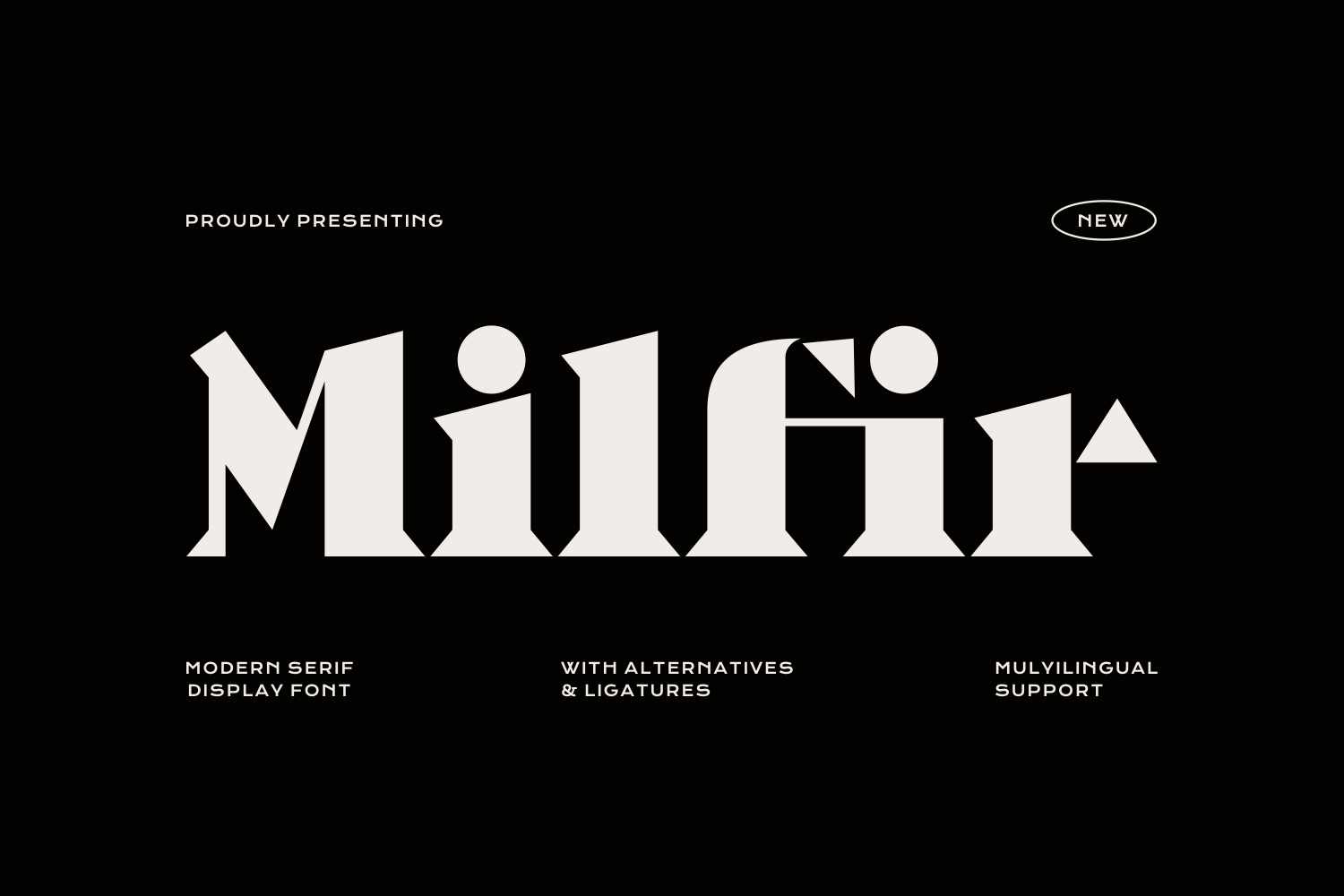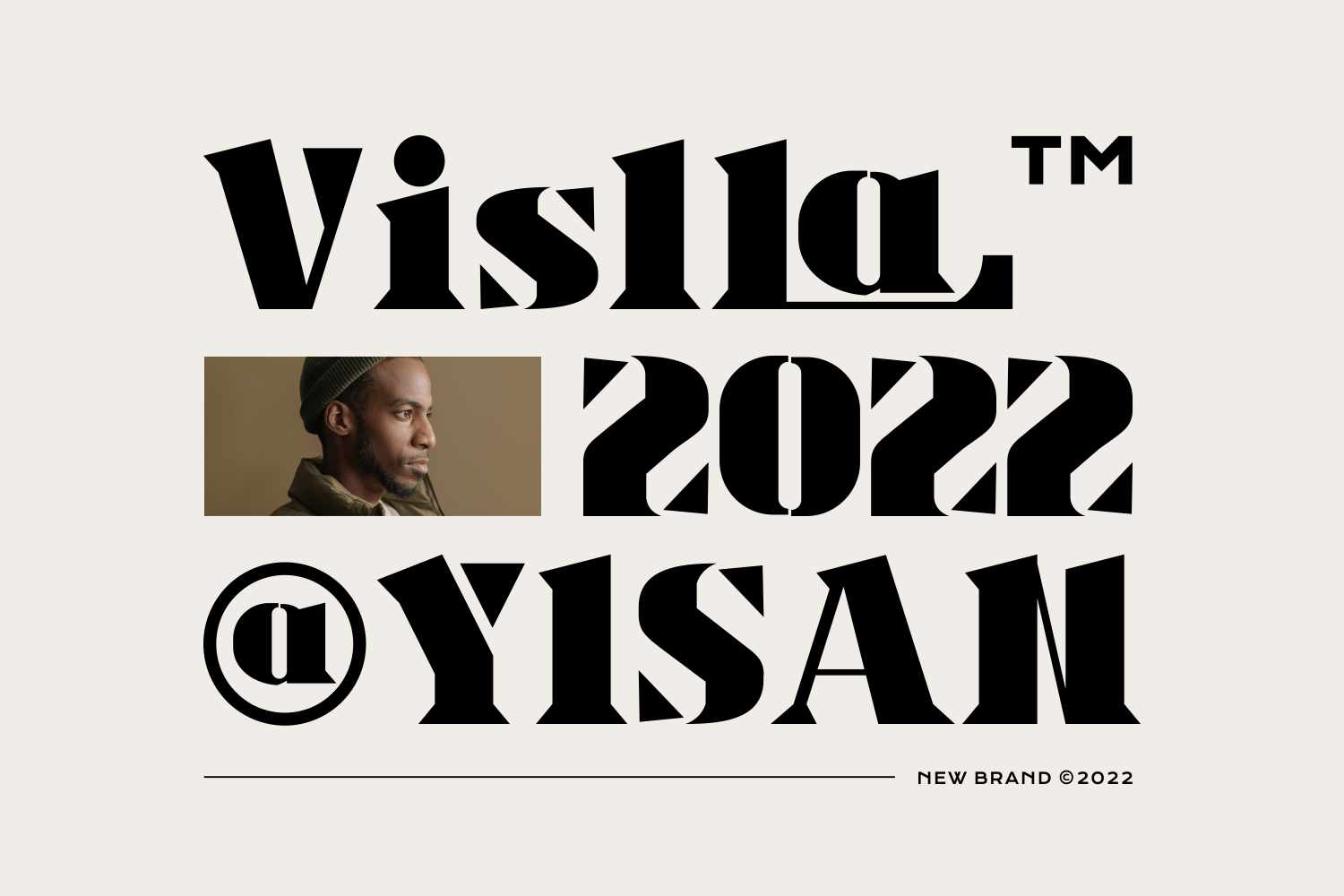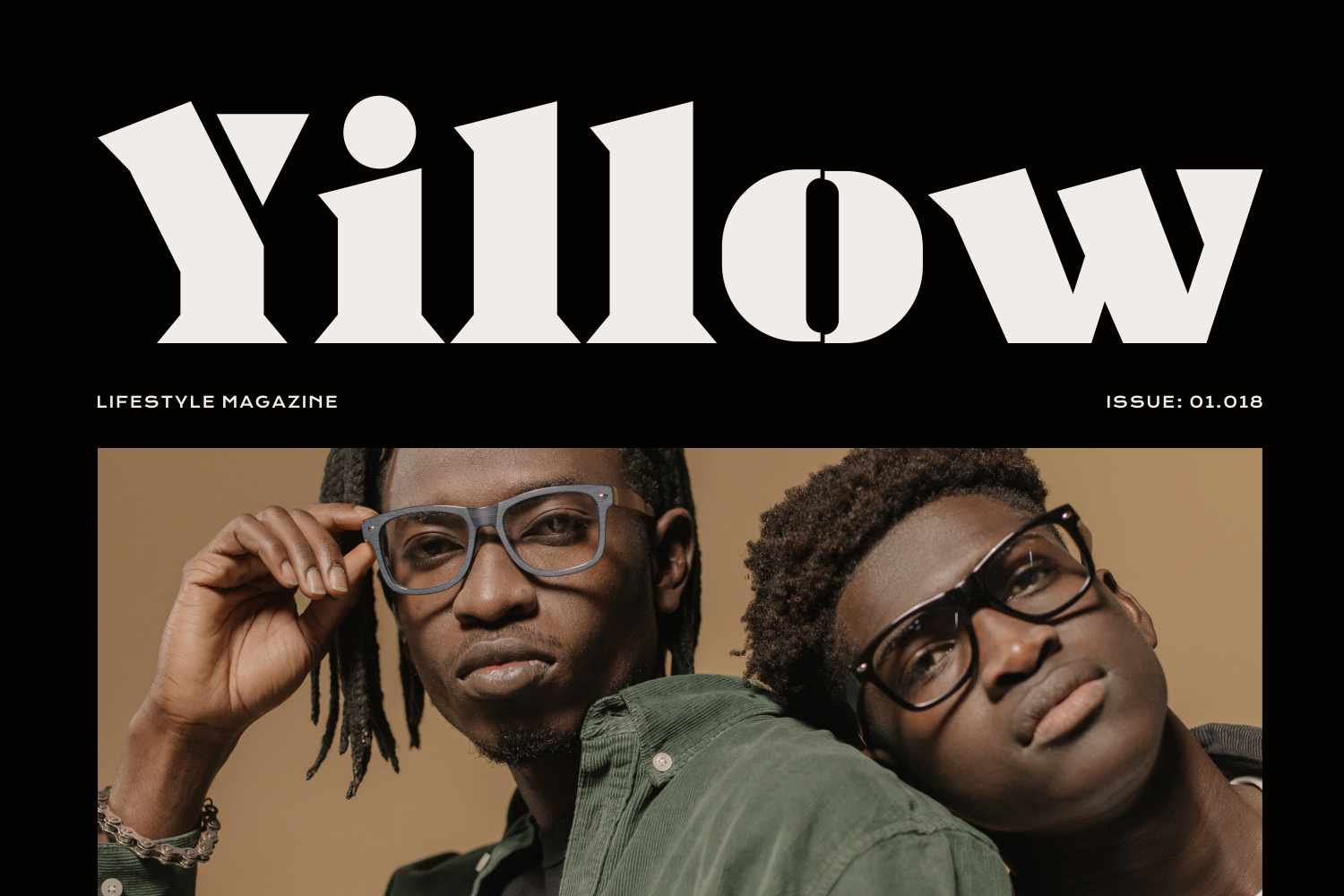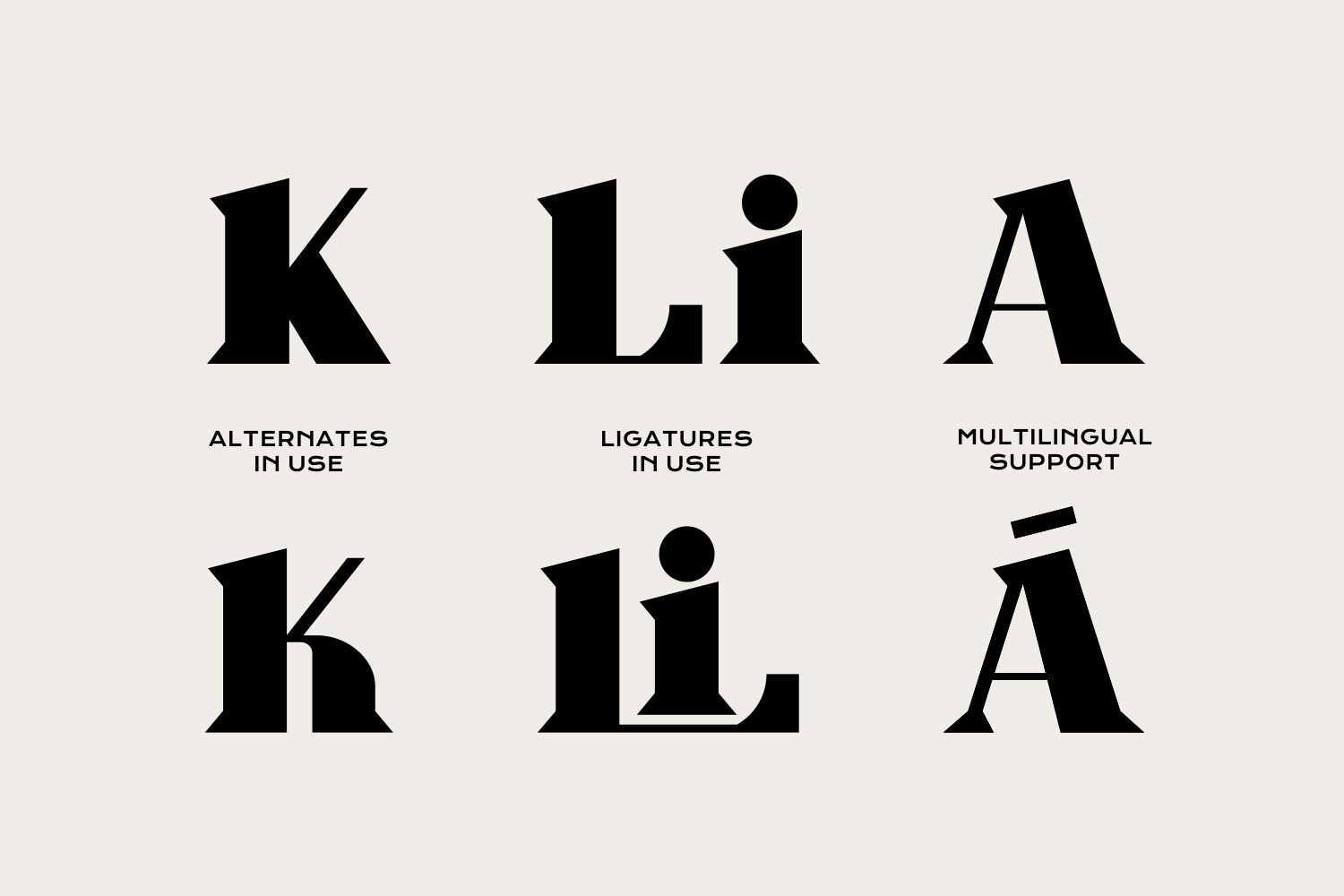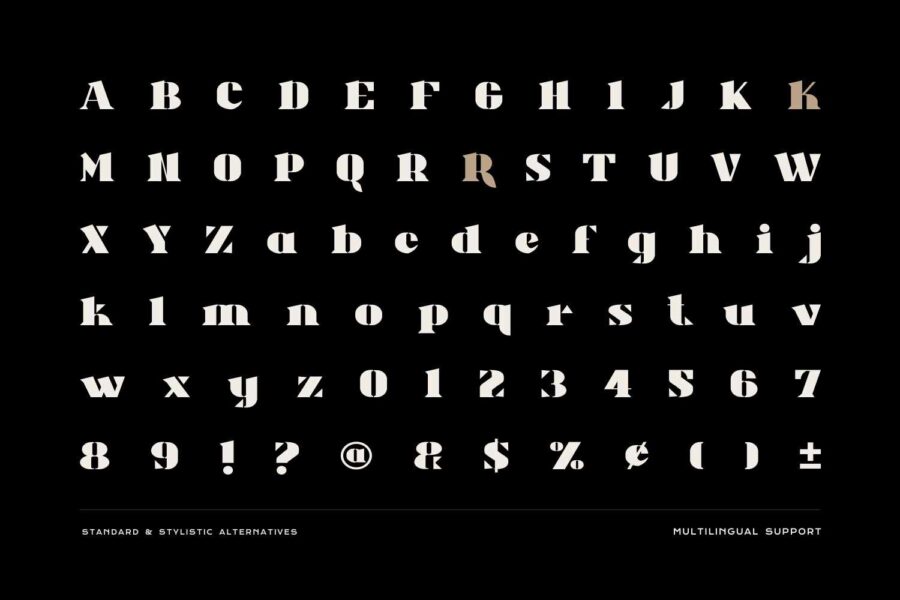
Milfir
Milfir is a striking modern serif display font that effortlessly blends sharp geometry with bold sophistication. Characterized by its angular cuts, unique ligatures, and expressive alternates, Milfir delivers a powerful statement in every word. It is crafted for those who seek to break away from conventional serif norms, offering a dynamic edge ideal for fashion branding, editorial headlines, and experimental design.
With its wide range of stylistic alternates and multilingual support, Milfir provides flexibility and flair across various design needs. From logo marks to magazine covers, this font empowers your typography with a high-impact visual presence that commands attention. Whether used in black or ivory tones, Milfir remains an avant-garde choice for designers who aim to impress.